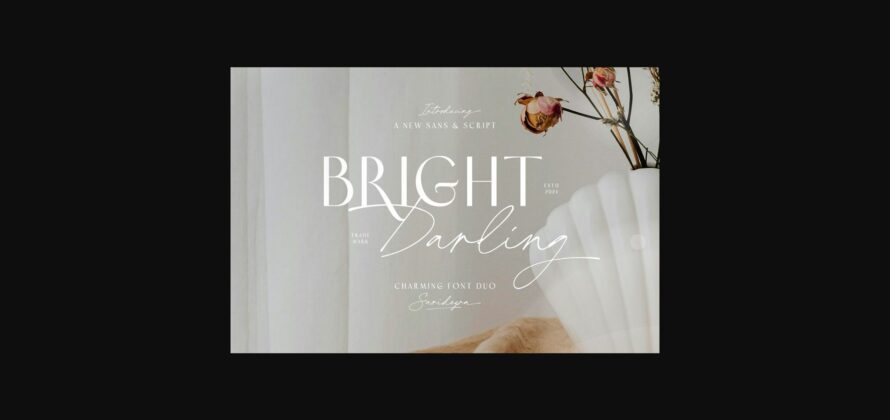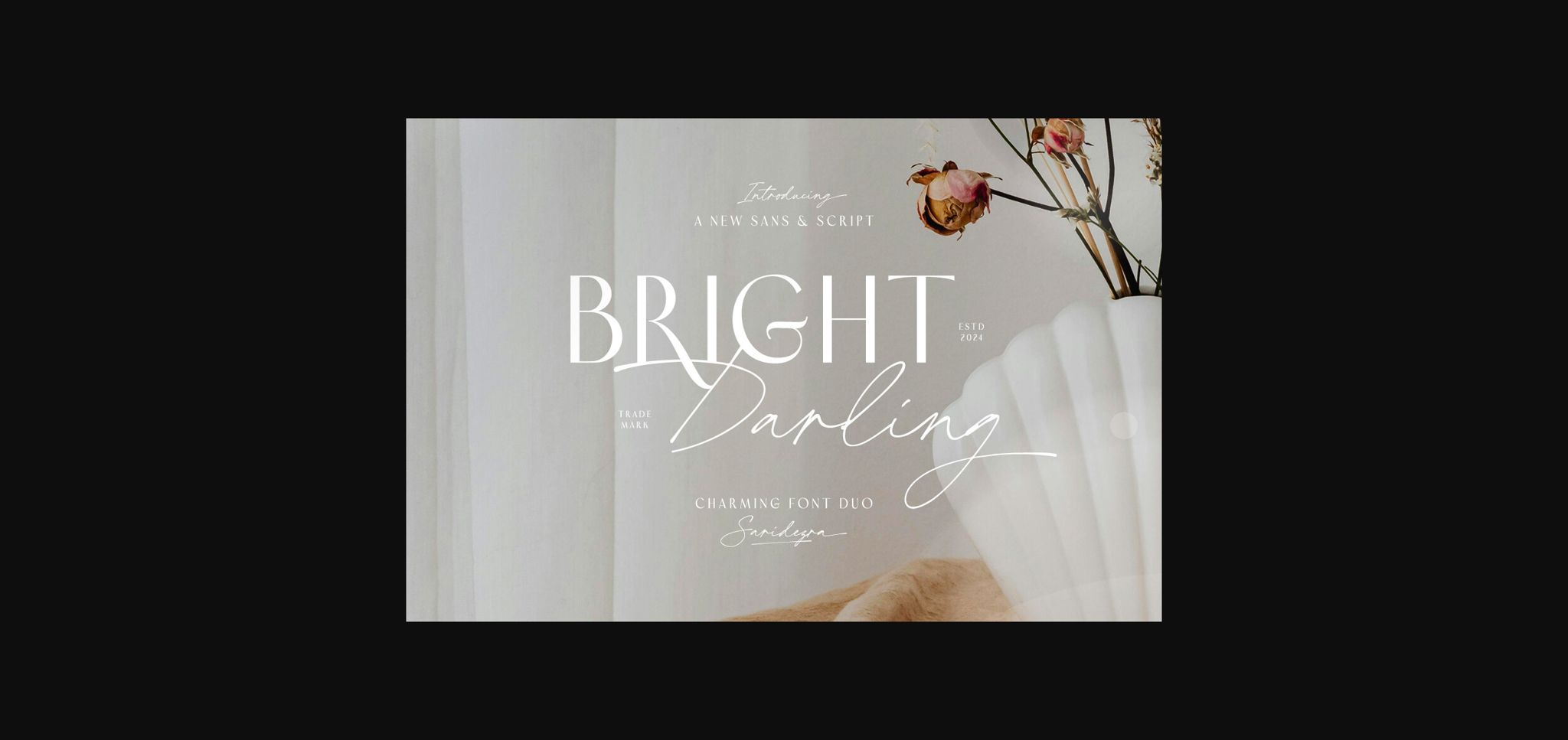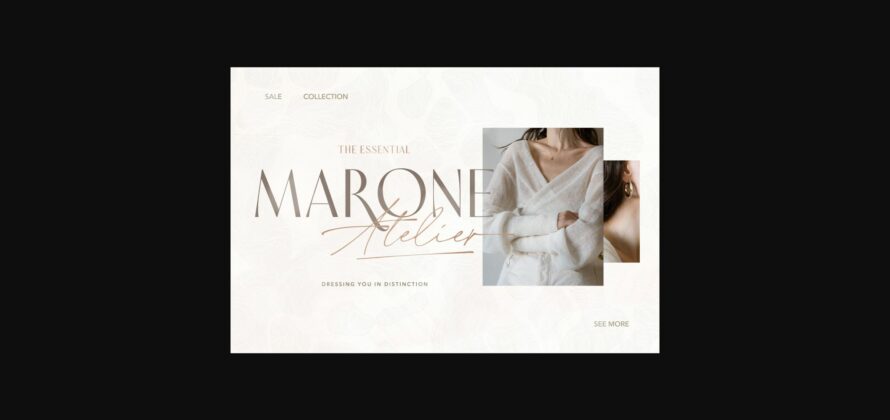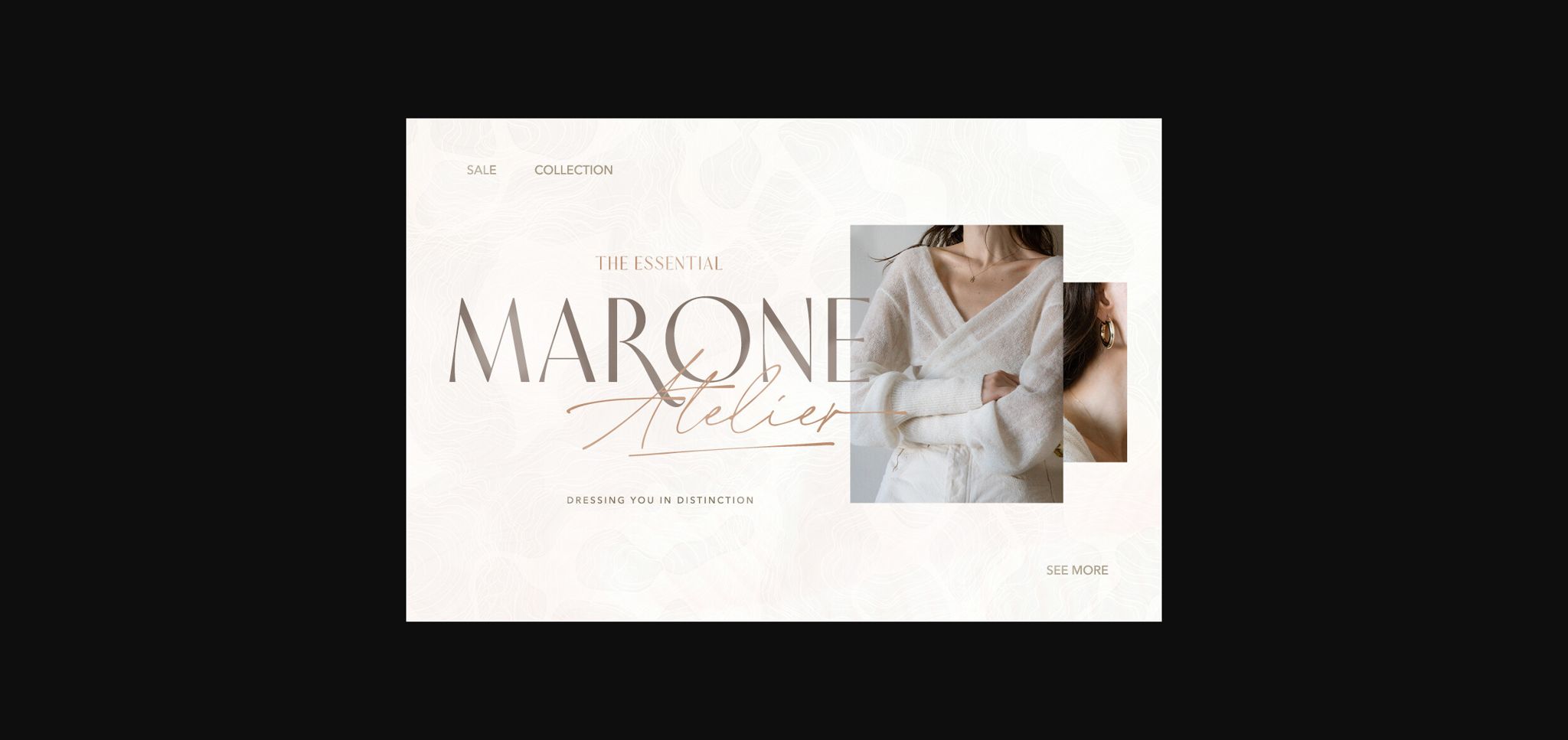
About Bright Darling Duo Font
Bright Darling is a stylish and elegant font duo, featuring a sophisticated sans-serif and a graceful script font. The sans exudes modern minimalism, while the script adds a touch of handcrafted elegance. Perfect for projects requiring a harmonious blend of chic simplicity and refined script, Bright Darling elevates your designs with timeless charm.